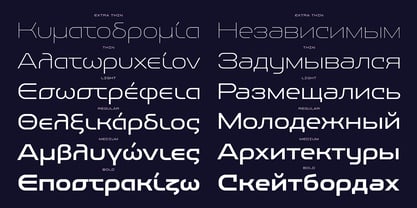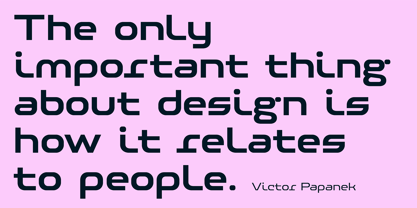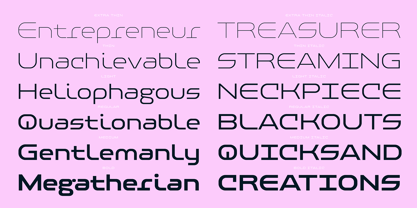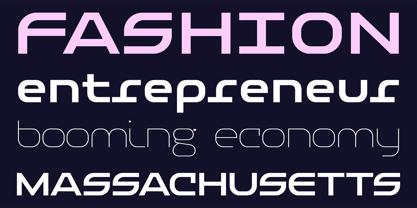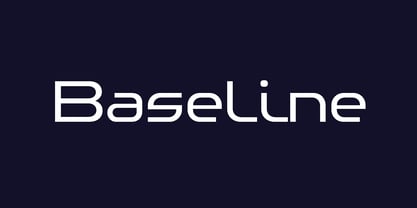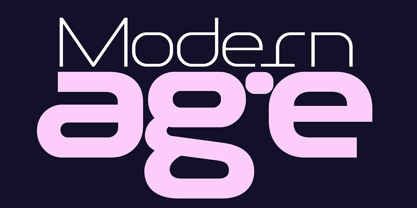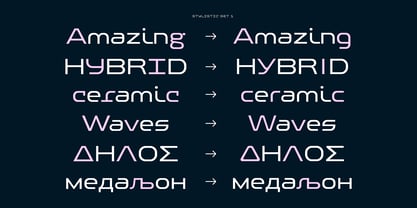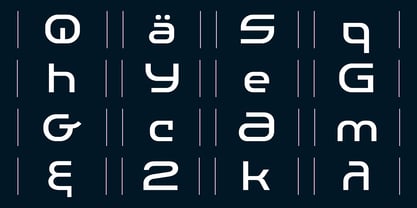
PF Baseline™ Pro
by Parachute
The PF Baseline Pro Font Family was designed by Panos Vassiliou and published by Parachute. PF Baseline Pro contains 6 styles and family package options. More about this family
An ultra modern typeface which combined with the proper text font can revive any dull-looking document. The wide simple forms combined with the selective application of a few distinct characteristics has resulted a stylish typeface which shines in the top 10 of our most wanted list. The powerful new “Pro” version comes complete with Greek and Cyrillic and includes a number of stylistic alternates as well as 2 groups of stylistic alternate sets, the last group being unicase characters.
Designers: Panos Vassiliou
Foundry: Parachute